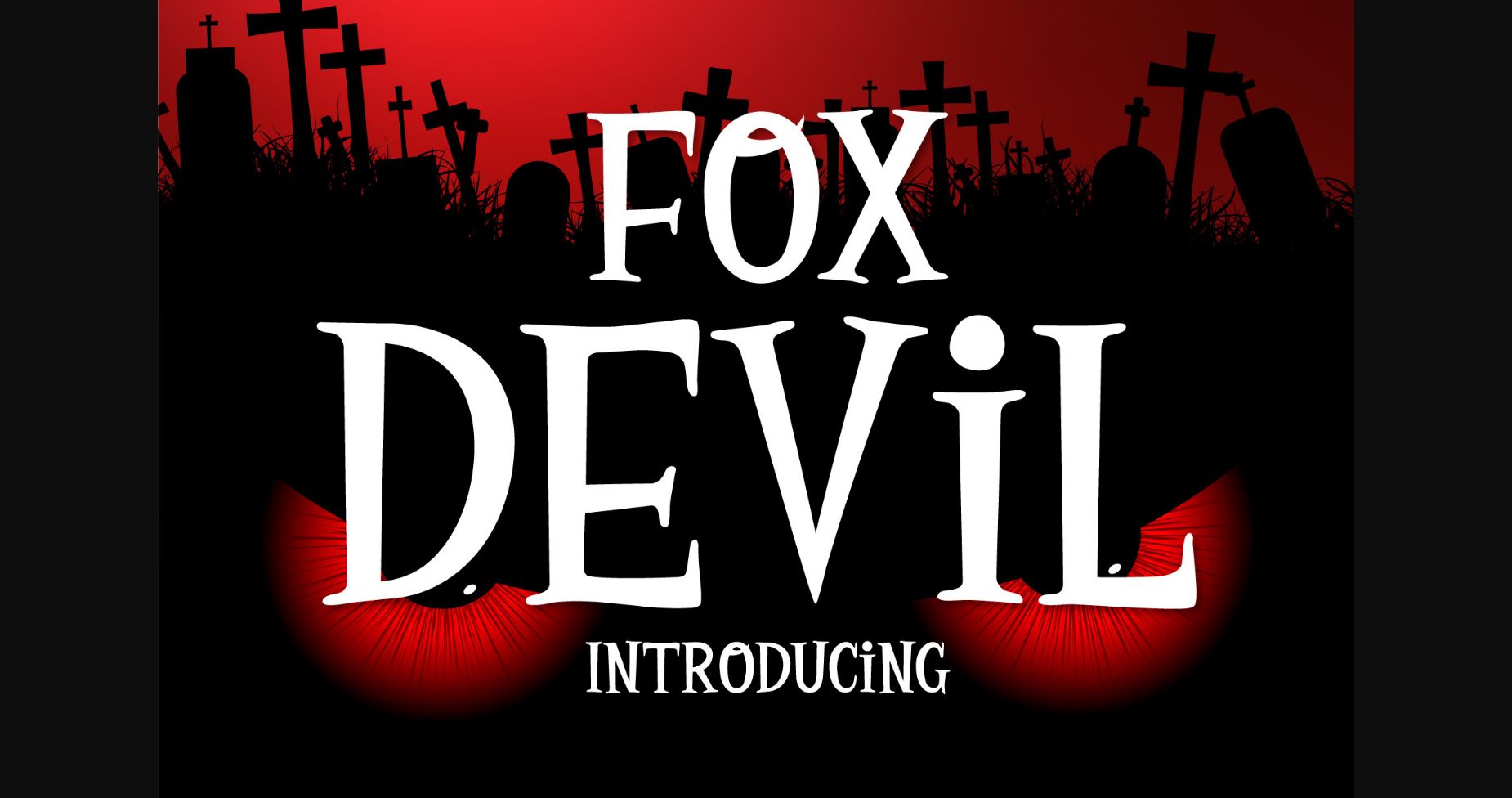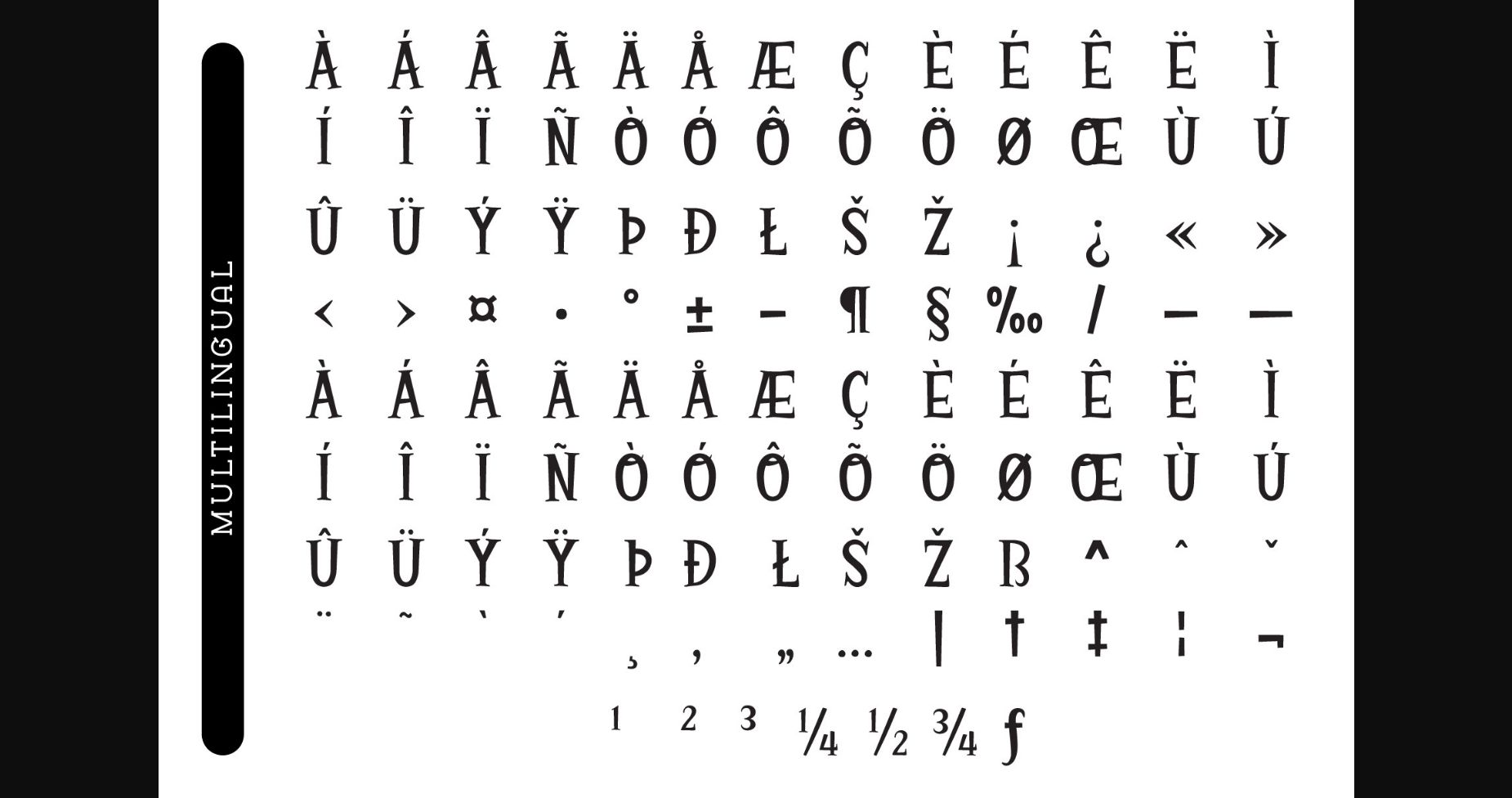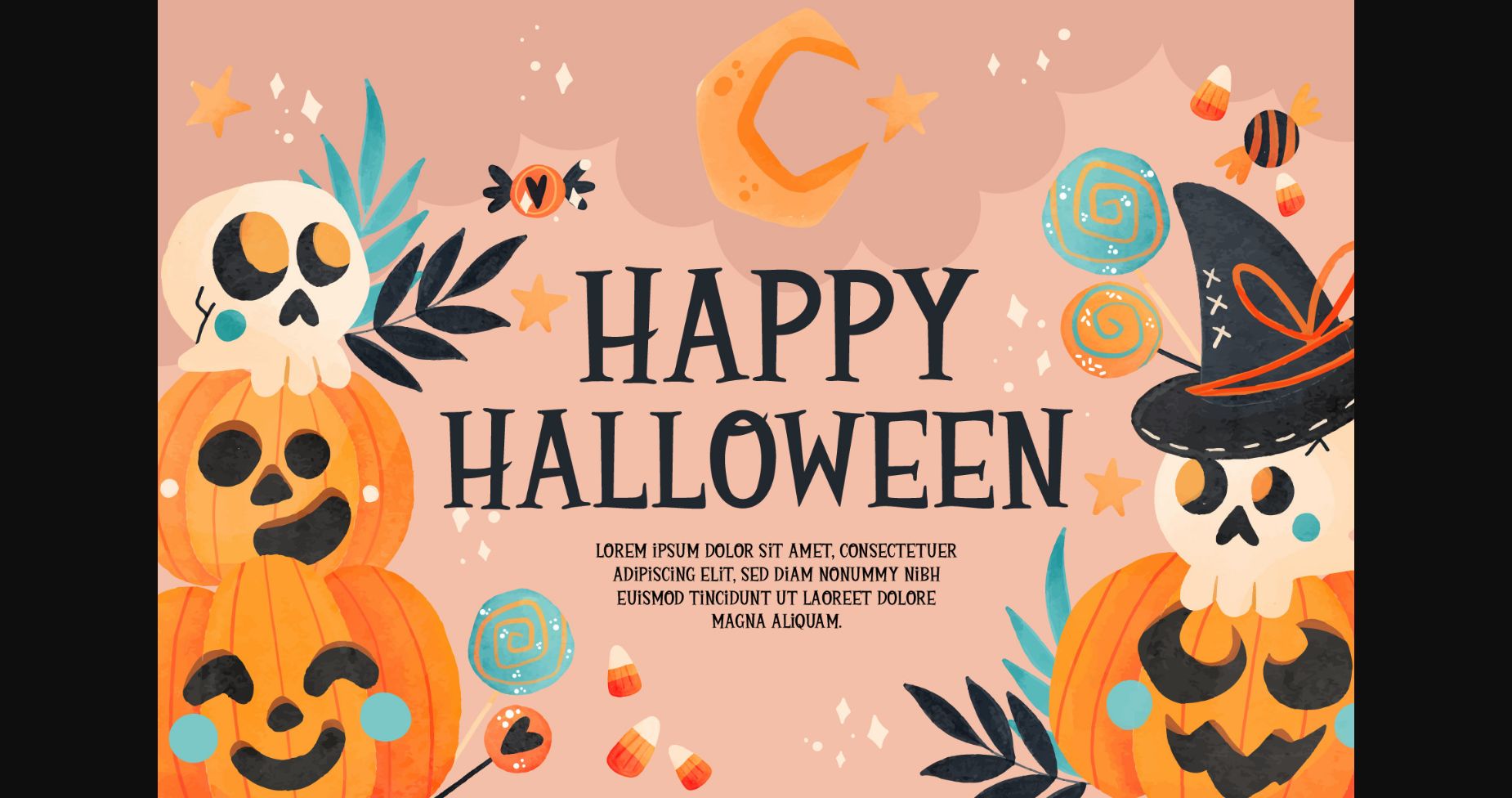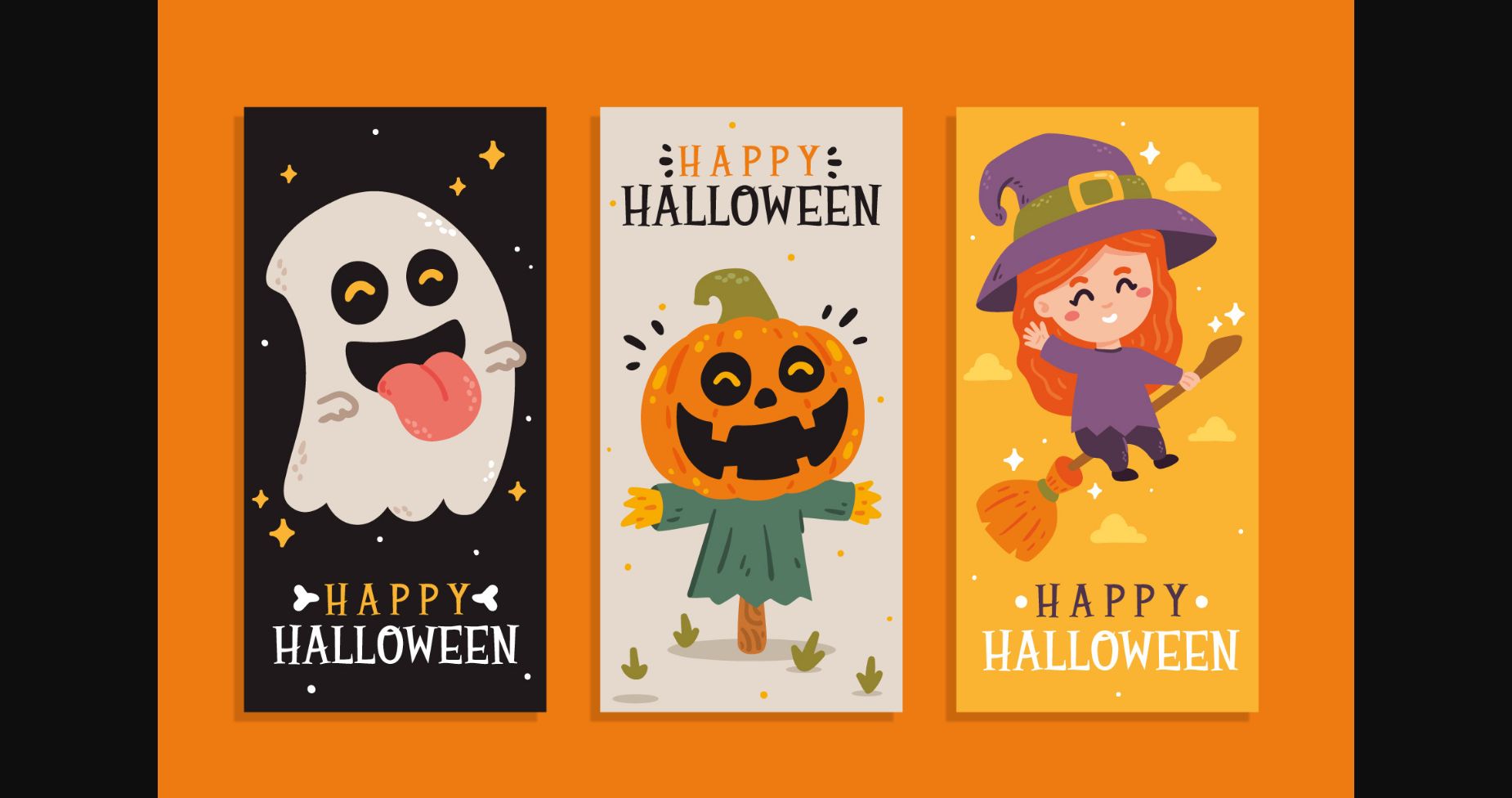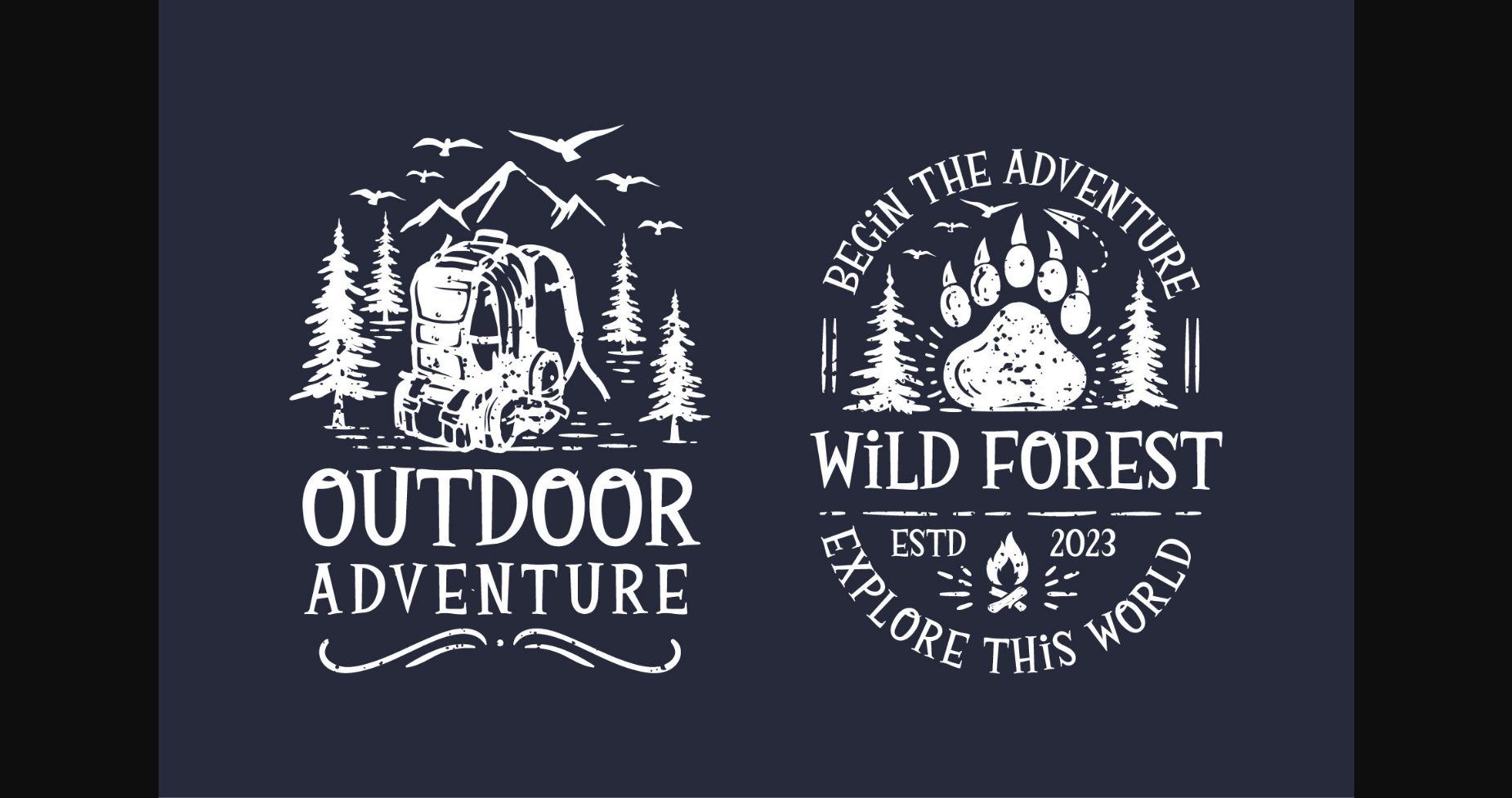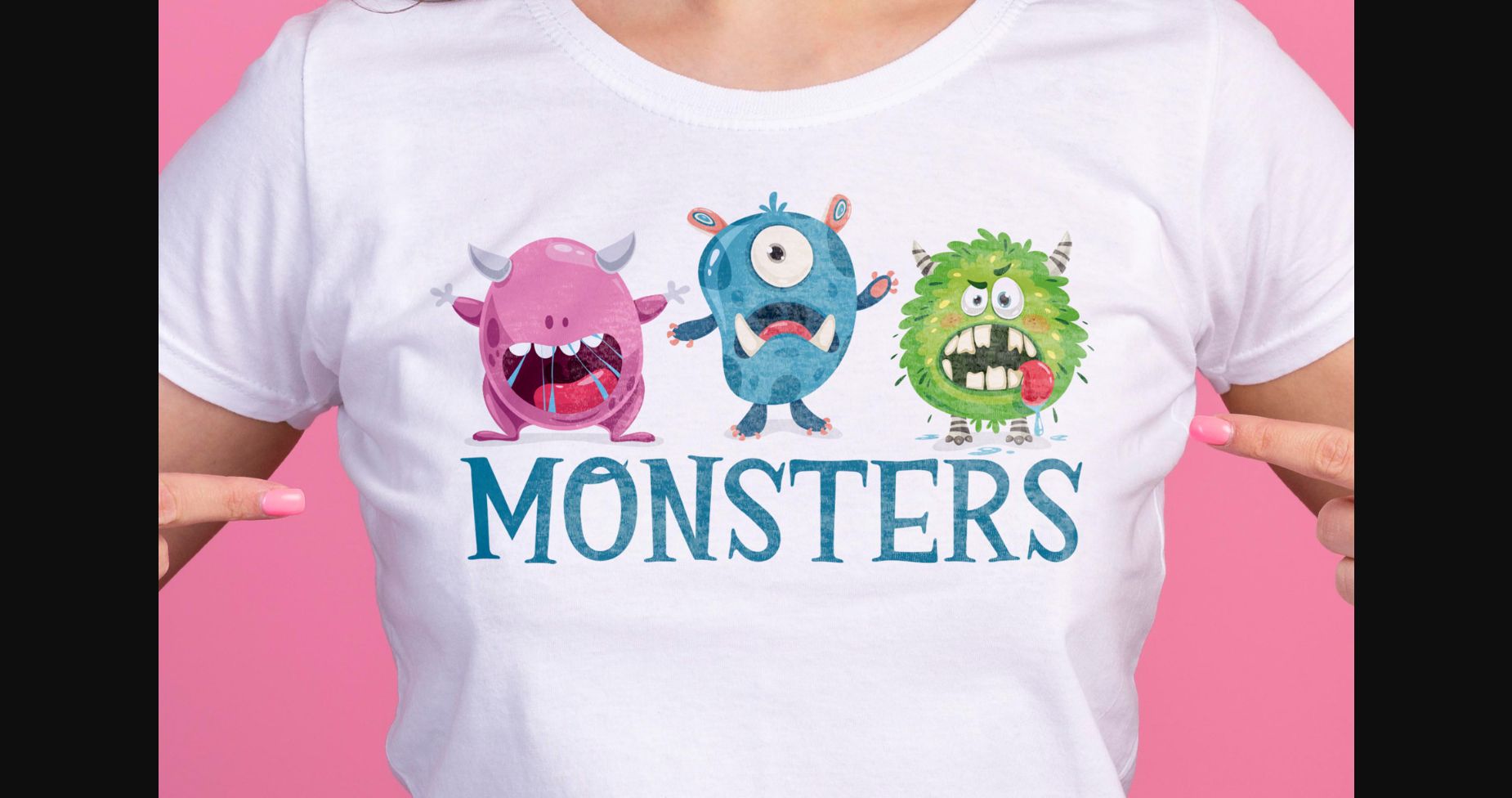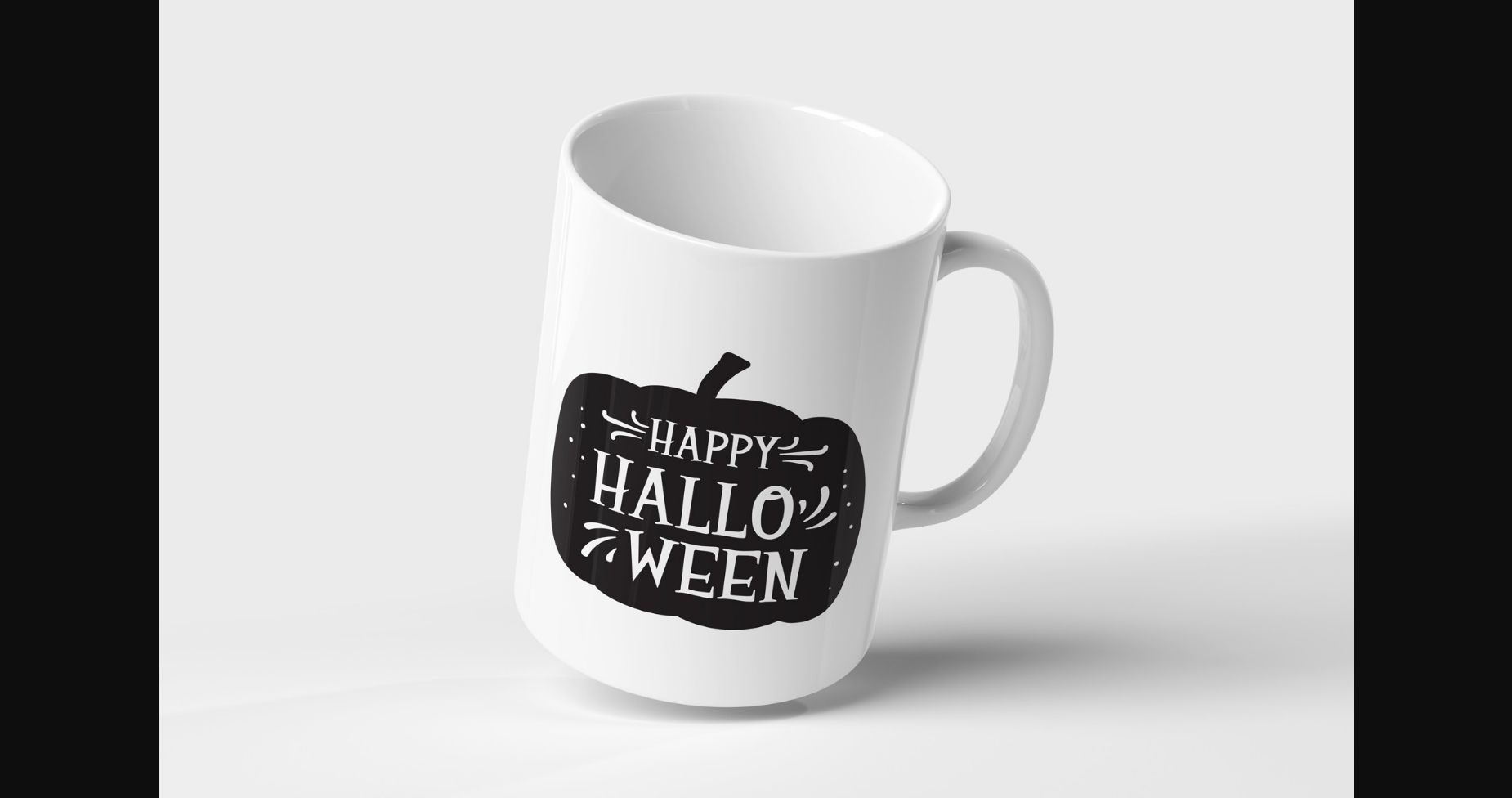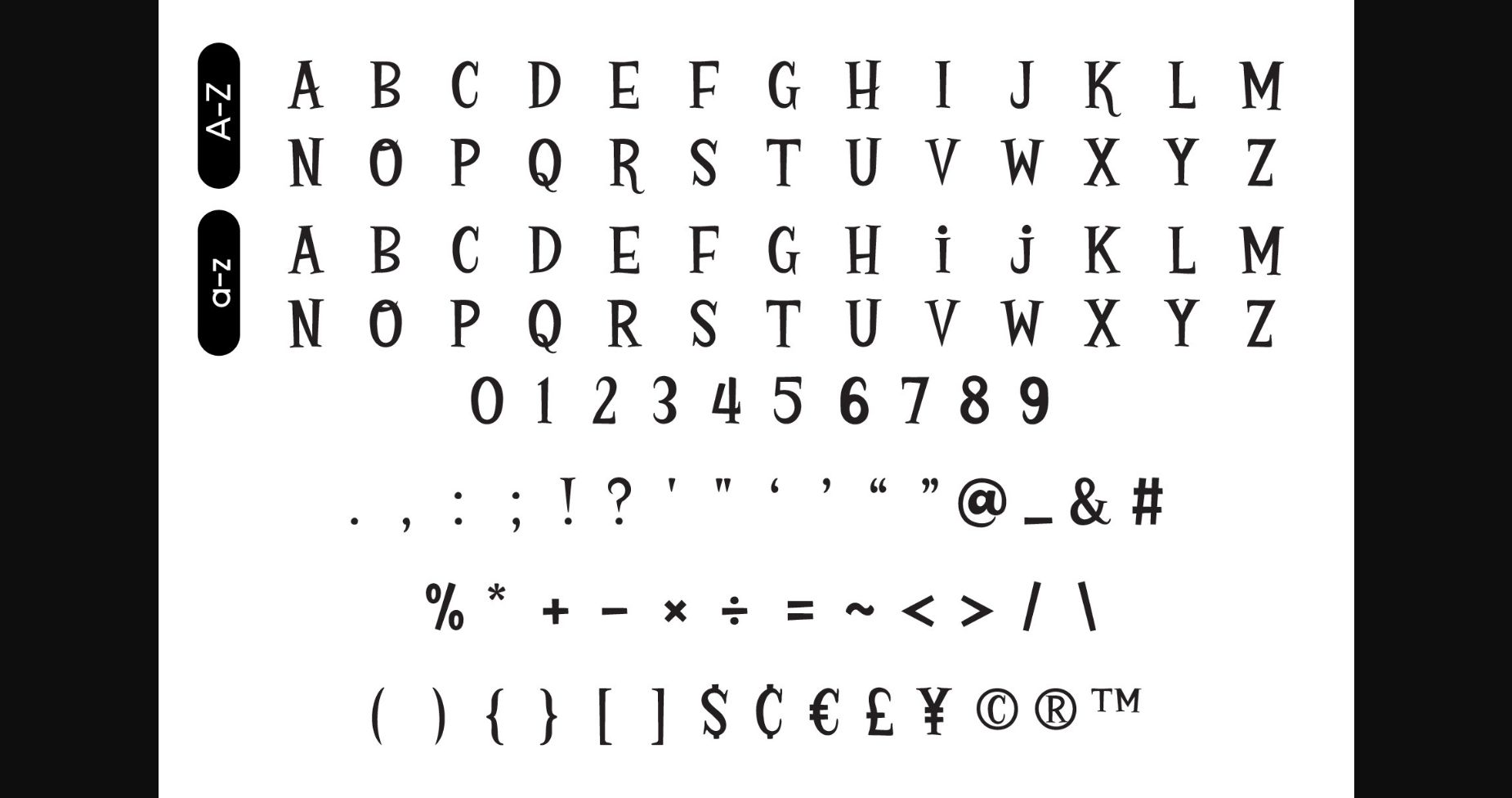
Fox Devil Font
About Fox Devil Font
Fox Devil is a beautiful and fun-style sans serif font, suitable for a variety of designs such as Halloween, and children’s themes. It is perfect for logos, t-shirts, papers, print designs, website headers, photo frames, flyers, music covers, posters, image sliders, and much more.